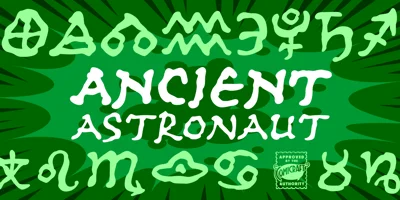
Ancient Astronaut Font
Ancient Astronaut Font is ideal for mysterious design projects including science fiction book covers, documentary film titles, conspiracy theory websites, space exploration materials, archaeological presentations, UFO research publications, ancient civilization exhibits, and paranormal investigation graphics. This enigmatic typeface works perfectly for video game interfaces, mystery novels, historical documentaries, cosmic-themed branding, and projects exploring extraterrestrial theories and ancient mysteries.
What makes Ancient Astronaut Font exciting is its captivating blend of ancient symbolism and futuristic elements that creates an atmosphere of cosmic mystery and timeless intrigue. The font features hieroglyphic-inspired letterforms combined with space-age geometric patterns that suggest connections between ancient civilizations and advanced technologies. Its unique character design incorporates mysterious symbols and otherworldly aesthetics that spark curiosity and wonder about humanity's cosmic heritage and potential alien encounters throughout history.
Ancient Astronaut Font comes in multiple family variations including regular, bold, light, and textured styles. Each weight maintains the distinctive mysterious character while offering different levels of visual impact and atmospheric intensity. The font family includes alien-inspired alternates, cosmic ligatures, and ancient symbol variations that provide designers with extensive options for creating truly otherworldly typographic experiences.
Whether you're designing science fiction materials, creating documentary graphics, or developing mystery-themed projects, Ancient Astronaut Font provides the perfect typographic gateway to explore cosmic mysteries and ancient secrets. This extraordinary typeface transforms ordinary text into compelling invitations to discover hidden truths about our universe. Download this fascinating font today and unlock the mysteries that connect ancient wisdom with cosmic possibilities in your most intriguing design adventures.